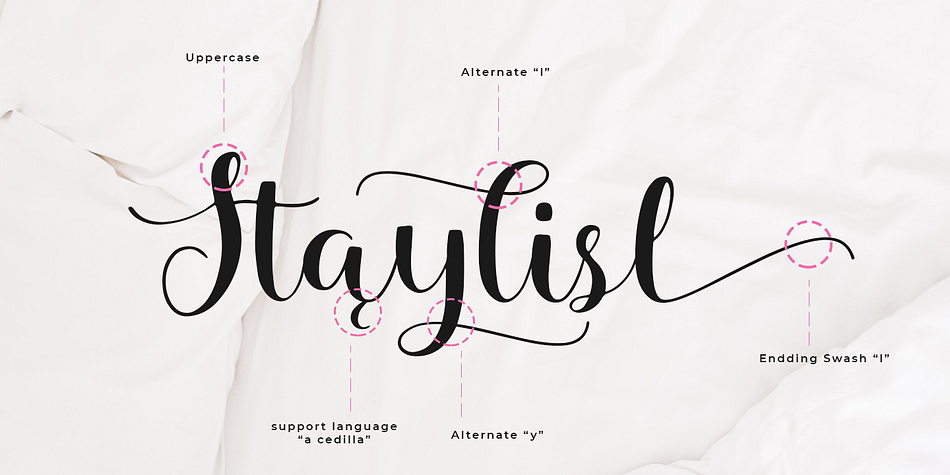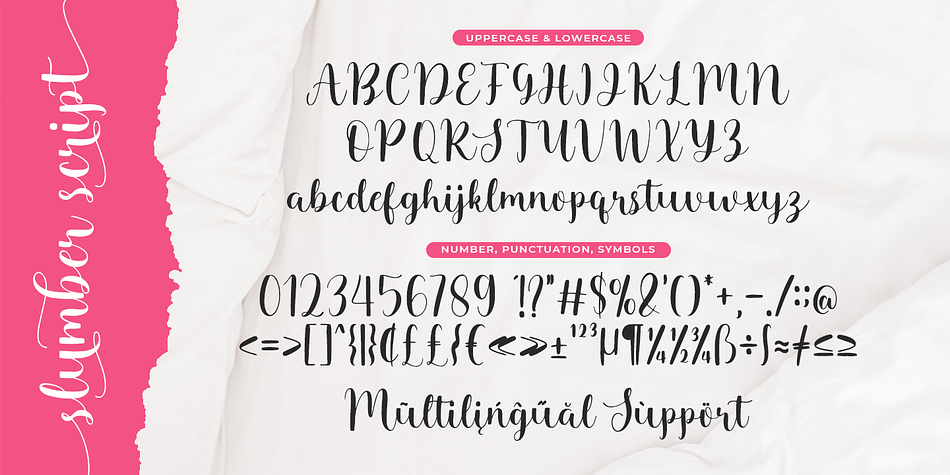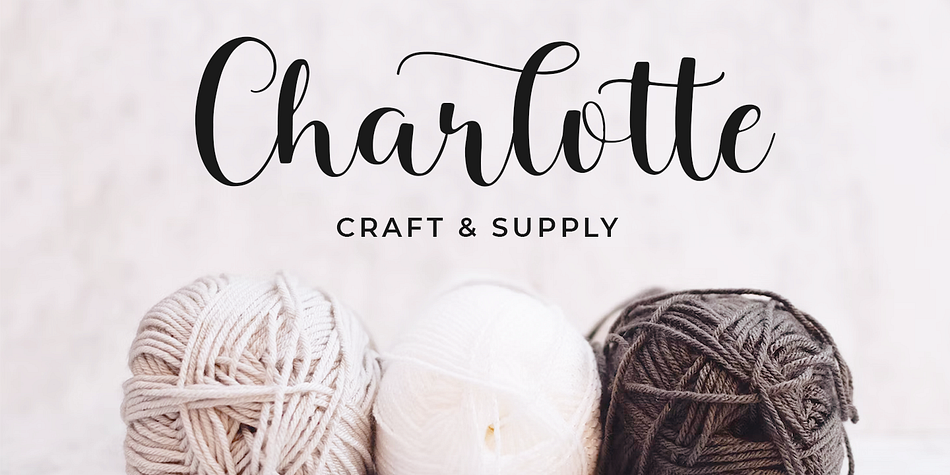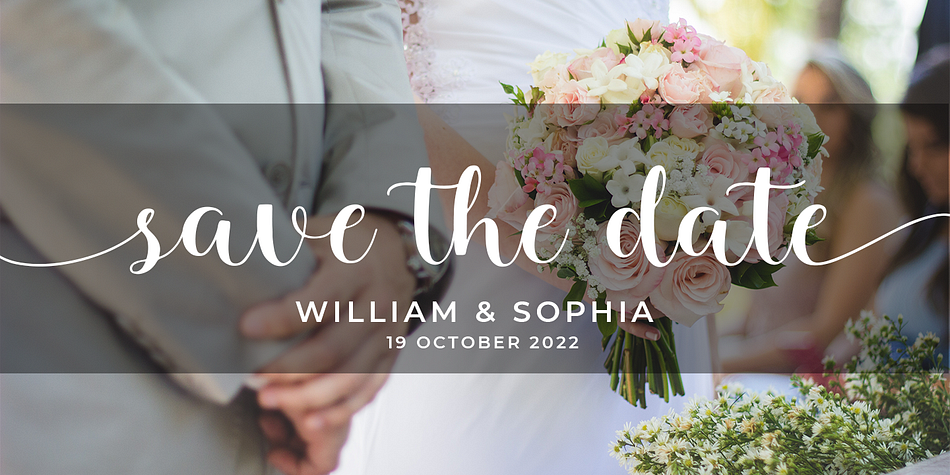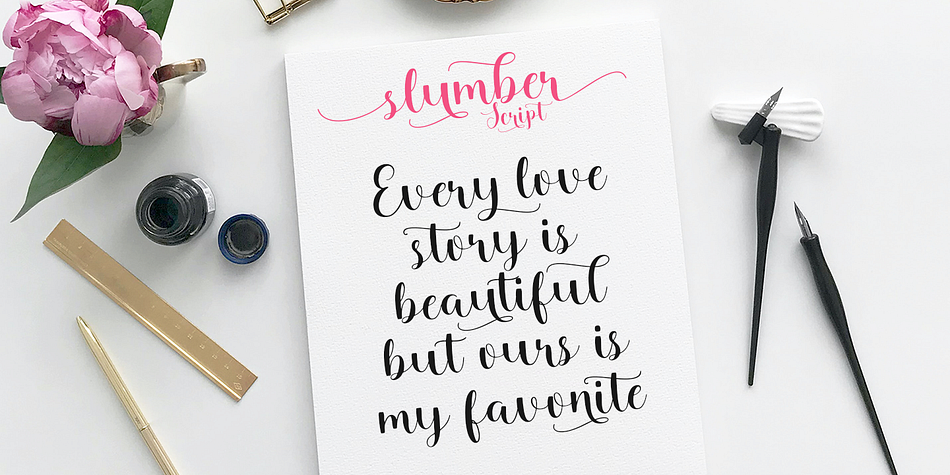
Slumber
Slumber is a modern calligraphy font family published by Gatype.
Slumber Script with modern hand stroke type, I hope you are interested in this font, if you want to use for your work this font can be used easily and simply because there are many features in it to load a complete set of lowercase and uppercase letters, various kinds punctuation, numbers, and multilingual support. The font also contains several ligatures and alternative Style Sets for those of you who have software that can work with OpenType (Photoshop/Illustrator/InDesign). Slumber Script is suitable for use in today’s growing market design, this font has a Trendy, natural and gentle model, with this font you can take advantage of every moment, a beautiful way to highlight your best holiday celebrations, because this font will be support for purposes such as wedding invitations, parties, graduations, birthdays, gatherings, etc.